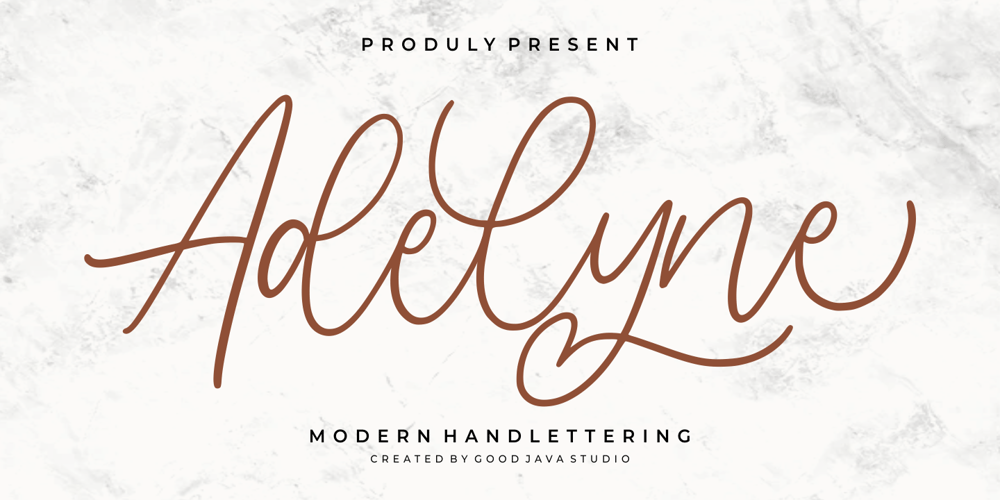
Adelyne Font Family was designed by Good Java and published by Good Java Studio. Adelyne contains 1 styles and family package options. Adelyne is a modern hand-lettering font make from handwriting ideas in font design. This font includes full Alphabetical glyphs, Numerals, and punctuation. Adelyne is perfect for invitations, monograms, wedding, fashion, branding, labels, hand-lettering or logotype.